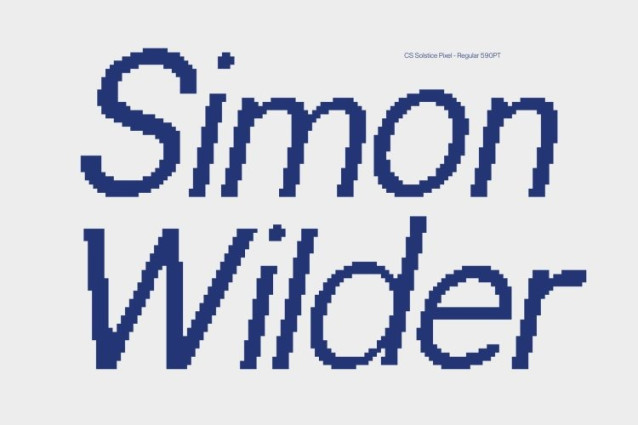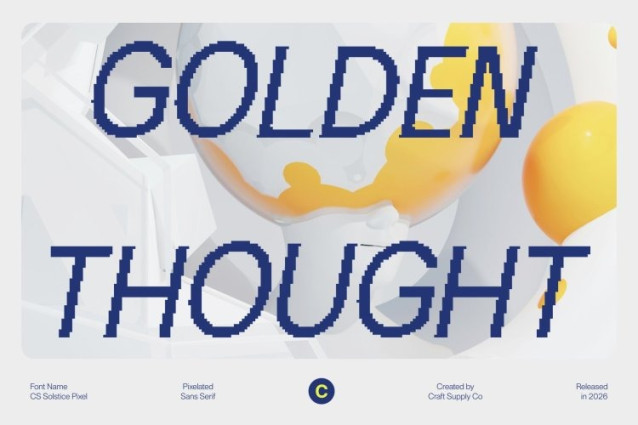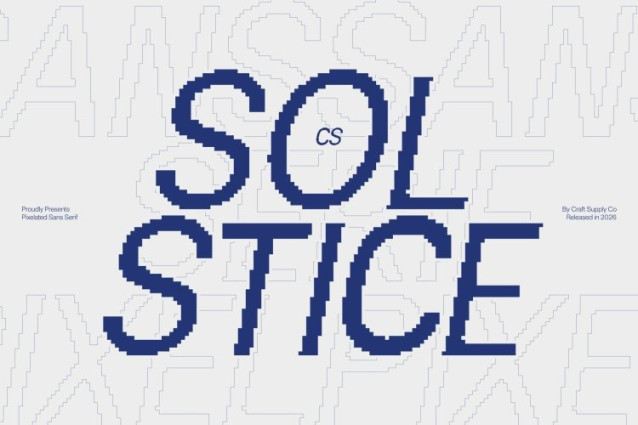
CS Solstice Pixel Font
CS Solstice Pixel Font This is a modern sans serif font crafted to communicate confidence and clarity with refined pixel precision. Its clean lines and balanced proportions create a bold, contemporary aesthetic, while subtle pixel detailing introduces a crisp digital edge. The result is typography that feels strong, structured, and unmistakably modern.
Structured Simplicity with Digital Sharpness
Built on geometric harmony and minimalist principles, this font delivers a polished and professional appearance. Even stroke weights and clearly defined forms ensure excellent legibility, while pixel accents reinforce its technical and contemporary character. Every letter feels intentional, stable, and authoritative.
Perfect for Headlines and Modern Branding
This font excels in headlines, branding systems, editorial layouts, UI concepts, and minimalist compositions. Its clarity and confident structure allow it to stand out without unnecessary ornamentation, making it ideal for projects that demand precision and visual strength across print and digital platforms.
Swiss Influence with Contemporary Innovation
Inspired by the timeless clarity of Swiss design, this font blends disciplined structure with modern digital refinement. this font offers understated elegance, confident geometry, and pixel-enhanced sharpness perfect for designers seeking a typeface that embodies strength, sophistication, and contemporary clarity in every application.